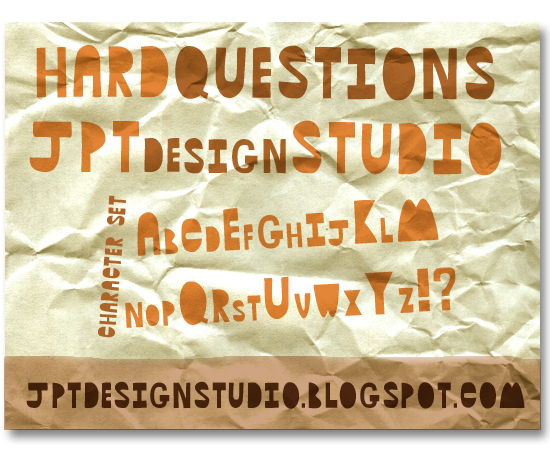
Hard Questions by Joshua Thompson of Jpt Design Studio is a free comic display font with towering, tightly packed forms. Its letters swell and pinch unpredictably, mixing blunt bars with bulbous curves and narrow joins. The uneven silhouettes give the alphabet a cut-paper, hand-shaped quality.
It can turn a title into a row of mismatched shapes. It suits comedy posters, children's packaging, and quirky music merchandise. There, the letters can become part of an illustration rather than neutral text.
- Adjusted character shapes for E, F, and J.